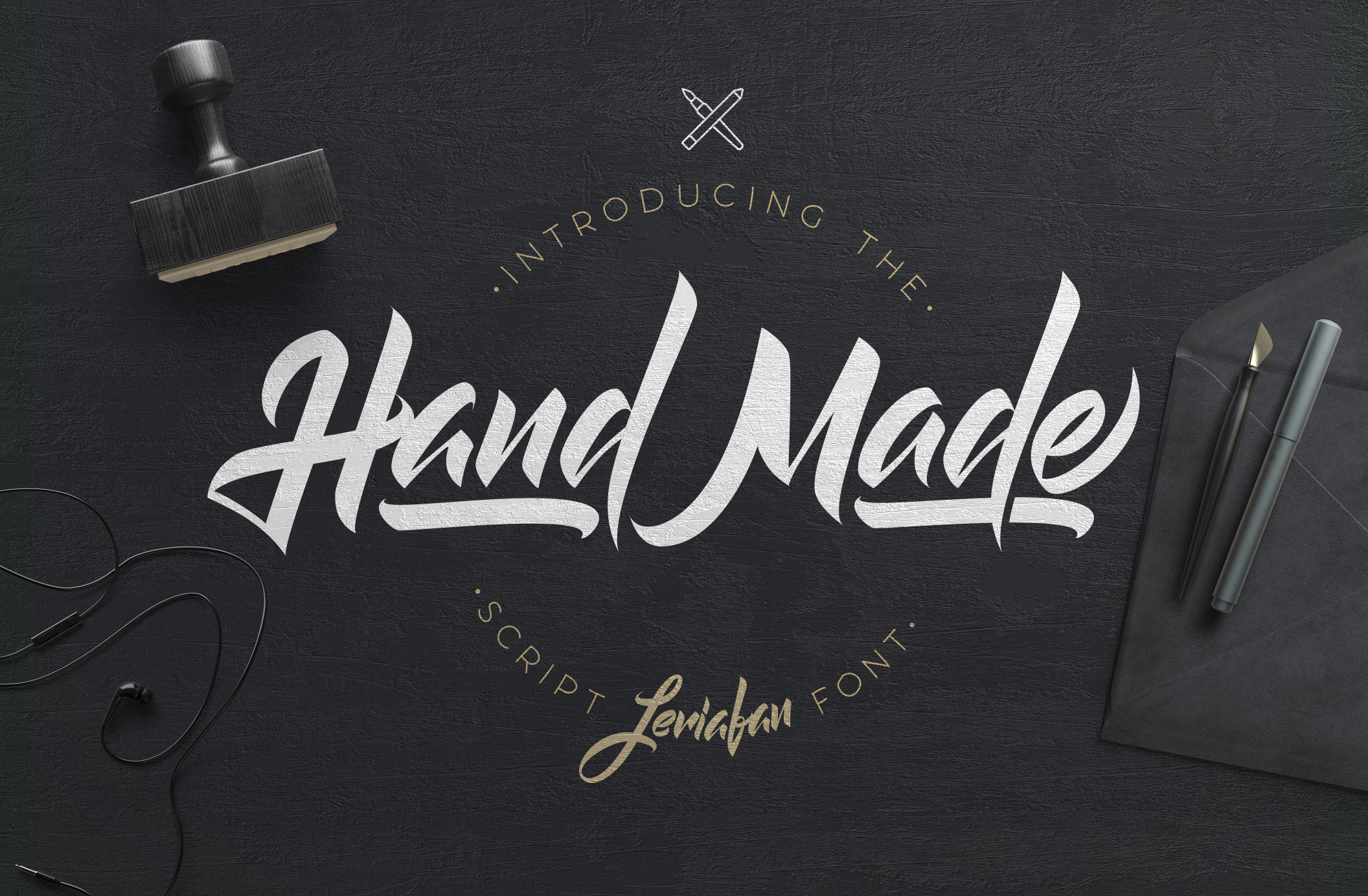
Leviafan is a handlettering typeface with a brush style, it’s perfect for latterhead, apparel design, headline, logotype, poster, card, and etc. For folks who have opentype capable software : The alternates are accessible by turning on 'Stylistic Alternates' and 'Ligatures' buttons on in Photoshop's Character panel, or via any software with a glyphs panel, e.g. Adobe Illustrator, Photoshop, Inkscape.
Uppercase and lowercase letters
Multi language
Alternate letters
Splashes
Splatters